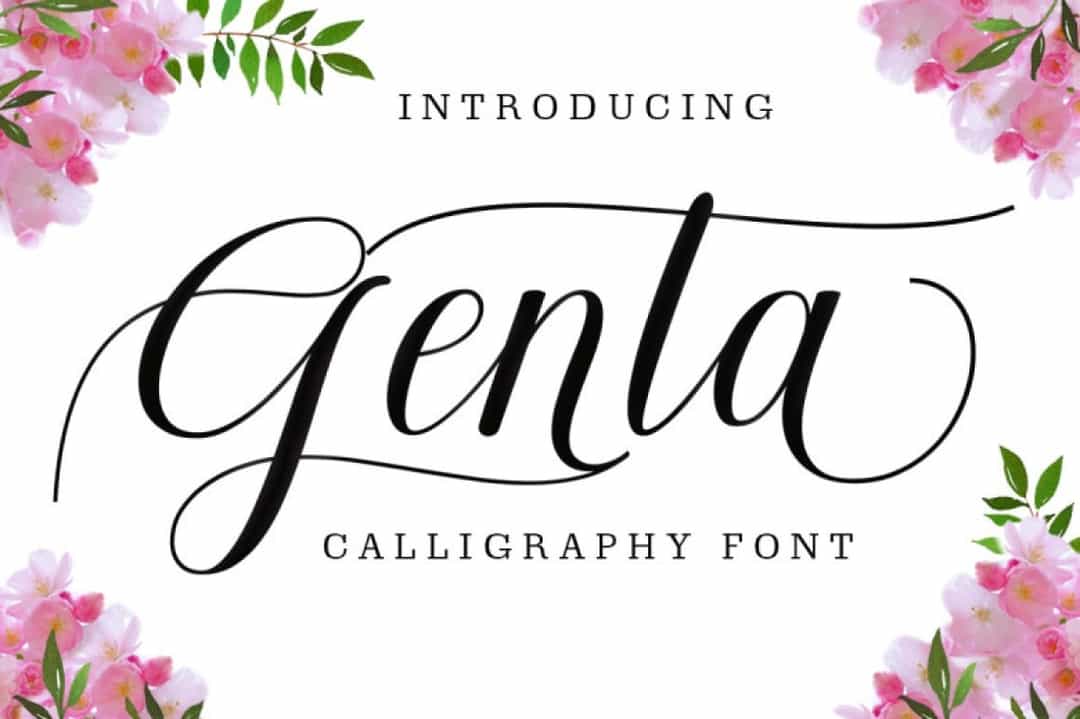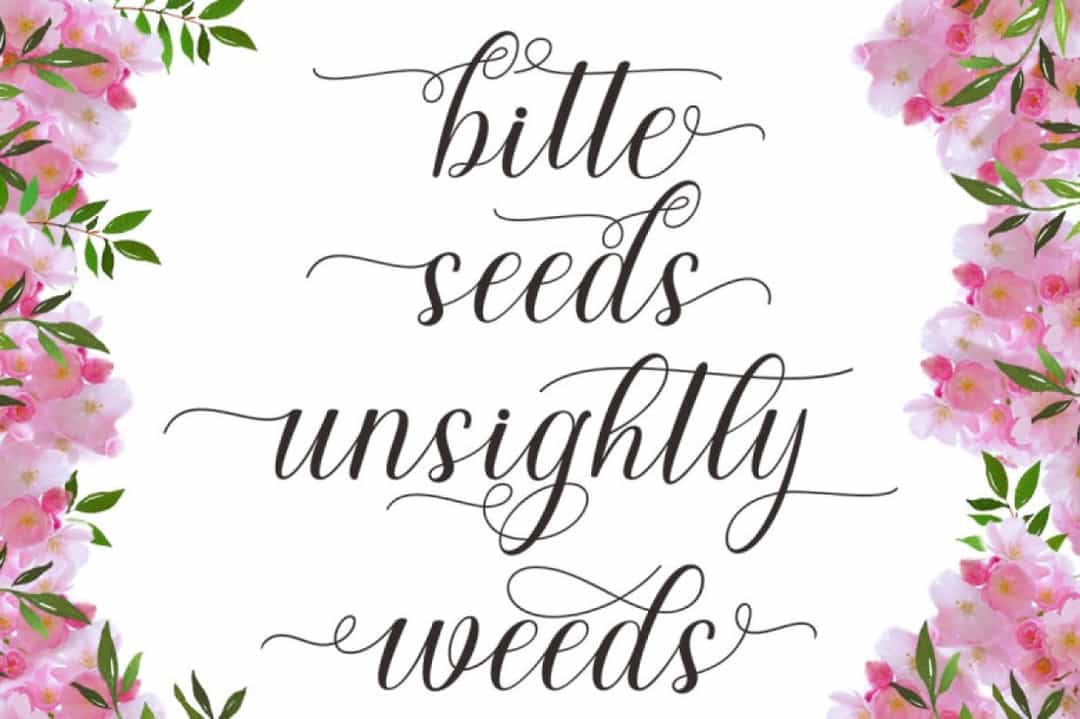
We are pleased to introduce the beautiful fresh Genta font! For those who want a little sophistication and modernity to your designs This font was designed specifically for you! This font is ideal for any design needs, such as logo design branding posters, covers and magazines Wedding invitations and greeting cards quotes, and much many more.